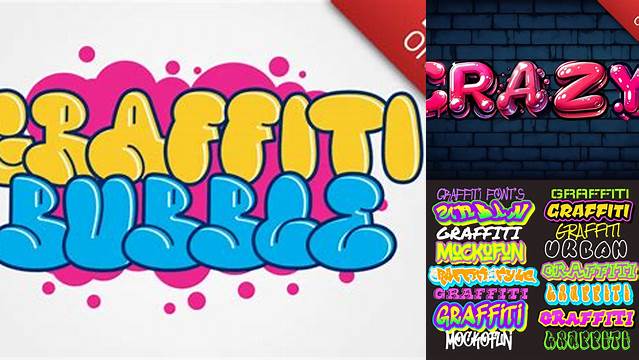
Free Bubble Graffiti Font Generator: Unleash Your Inner Artist
Hey guys, are you ready to dive into the awesome world of bubble graffiti fonts? Let's face it, there's something super cool and eye-catching about those bubbly, rounded letters that just scream street art. And the best part? You can create your own with a bubble graffiti font generator free! No need to be a professional artist or spend a ton of money. This guide will walk you through everything you need to know, from understanding what makes a great bubble font to finding the best free tools and even some tips on how to use them effectively. So, buckle up, grab your virtual spray cans, and get ready to make some digital art!
What Exactly is a Bubble Graffiti Font?
Okay, let's get the basics down. A bubble graffiti font, at its core, is a typeface designed to mimic the look of bubble letters commonly seen in graffiti art. Think of those plump, rounded letters that seem to pop right off the wall. They're fun, playful, and have a distinct street-art vibe. These fonts typically feature thick strokes, rounded edges, and a sense of volume, giving them that signature bubbly appearance. They are perfect for creating bold headlines, eye-catching logos, and even adding a unique touch to your social media posts. The beauty of it all is how versatile they are. You can find bubble fonts that range from simple and clean to complex and stylized, often incorporating elements like outlines, shadows, and even 3D effects. This flexibility makes them a great choice for various design projects, allowing you to express your creativity in so many ways!
So, what are the key characteristics of a bubble graffiti font? First, there's the rounded shape, as we've discussed. The letters are typically wide and circular, with curves that give them that bubbly appearance. Then, there's the thickness of the strokes. They are usually much thicker than standard fonts, contributing to the overall volume and visual impact. You'll also notice the use of outlines and shadows. These elements create depth and dimension, making the letters pop. And finally, many bubble fonts incorporate playful details like exaggerated curves, drips, and even stylized tags, which makes these fonts such an excellent option for a variety of digital projects.
Why Use a Bubble Graffiti Font?
Why opt for a bubble graffiti font in the first place? Well, there are several reasons, guys! They are attention-grabbing. In a world saturated with information, a well-designed bubble font can help your message stand out. They're fun and approachable. The playful nature of these fonts makes them ideal for projects aimed at a younger audience or those that want to convey a sense of fun and creativity. They're versatile. While they're perfect for graffiti-inspired designs, they can also be used in a variety of other contexts, such as posters, invitations, logos, and social media graphics. They are customizable. With a bubble graffiti font generator free, you can experiment with different colors, sizes, and effects to create a unique look that matches your vision.
Choosing the Right Bubble Graffiti Font Generator
Alright, so you're sold on the idea of using a bubble graffiti font. Now it's time to find the right bubble graffiti font generator free for you. With so many options available, it's essential to choose one that meets your needs and preferences. Let's explore some of the key factors to consider. First, ease of use is crucial. You want a generator that's user-friendly, even if you're a beginner. Look for a clean interface, intuitive controls, and clear instructions. Secondly, consider the font options. Does the generator offer a wide variety of bubble fonts, or are you limited to just a few? The more choices, the better. Then, there's the customization options. Can you adjust the font size, color, and style? Does it allow you to add effects like outlines, shadows, and 3D effects? Finally, compatibility is also important. Make sure the generator produces files that are compatible with the software you'll be using, whether it's a graphic design program or a social media platform.
When comparing different generators, read reviews and testimonials. This can give you valuable insights into the user experience and the quality of the fonts. Also, make sure to check the output formats. Can you save your designs in formats like PNG, JPG, or SVG? Consider whether the generator is web-based or requires you to download software. Web-based generators are generally more convenient, as you can access them from any device with an internet connection. Remember that the best bubble graffiti font generator free is the one that fits your specific needs and makes the design process enjoyable. It's all about finding the perfect tools to unleash your creativity without any hassle!
Top Free Bubble Font Generators
Let's dive into some top-rated free bubble graffiti font generator options! There are several fantastic tools out there that can help you create amazing designs without spending a dime. First, you have Canva. It's a popular, user-friendly graphic design platform with a wide range of fonts, including several bubble-style options. Canva also offers tons of customization options and allows you to create designs for various purposes. Secondly, there's FontSpace. This website offers a vast collection of free fonts, including many bubble fonts. You can browse by category, and filter your search to find the perfect font for your project. Thirdly, you have Befonts. It is another excellent resource for free fonts, including bubble fonts. It provides a large selection, often with previews and information on how to use them. Another great alternative is Font Squirrel. It focuses on high-quality, legally free fonts, which is great for commercial projects. Finally, you have TextGiraffe. This online tool allows you to generate text with various effects, including bubble fonts. It's super easy to use and perfect for quick designs. Each of these tools has its own strengths and weaknesses, so try them out to find the one that best fits your workflow and creative vision.
Step-by-Step Guide: Creating Bubble Fonts
Creating your own bubble graffiti font is easier than you might think, especially with a good bubble graffiti font generator free! Here's a step-by-step guide to help you get started. First, choose a generator. Select the tool that you like best from the options we discussed earlier. Then, enter your text. Type the words or phrases you want to create in bubble letters into the text box provided by the generator. After that, select a font. Browse through the available bubble fonts and choose the one that matches your style. Now, customize your design. Adjust the font size, color, and style to create the look you want. Feel free to experiment with outlines, shadows, and 3D effects. Preview your design. See how your text looks with the chosen font and settings. Make any necessary adjustments. Download your design. Once you're happy with the result, download your design in the desired format, such as PNG or JPG. Finally, use your design. Incorporate your bubble letters into your projects, whether they're social media graphics, posters, or anything else. Remember, the key to creating great designs is to experiment, have fun, and don't be afraid to try new things!
Tips for Designing with Bubble Fonts
Alright, you've got your bubble graffiti font generator free, and you're ready to create some awesome designs. But before you dive in, here are some helpful tips to take your creations to the next level. First, consider your audience. Think about who you're trying to reach and what message you want to convey. This will help you choose the right font and style. Secondly, pay attention to contrast. Make sure your bubble letters stand out against the background. Use contrasting colors or add an outline to improve readability. Then, experiment with different effects. Don't be afraid to try shadows, gradients, and 3D effects to add depth and visual interest. Consider the composition. How you arrange your bubble letters is just as important as the letters themselves. Make sure your design is balanced and visually appealing. Another excellent tip is to combine fonts. Mix and match bubble fonts with other fonts to create unique and dynamic designs. Don't forget about readability. Although bubble fonts are fun, they can sometimes be difficult to read. Make sure your text is legible, especially if it's long or complex. Finally, practice makes perfect. The more you experiment, the better you'll get at designing with bubble fonts. So have fun, get creative, and enjoy the process!
Where to Use Your Bubble Graffiti Fonts
So, you've generated some awesome bubble graffiti fonts with your favorite bubble graffiti font generator free. Now the question is, where can you use them? The possibilities are endless! First and foremost, use them on social media. Create eye-catching graphics for your posts, stories, and profile pictures. Use them for posters and flyers. Design striking posters and flyers to promote events, products, or services. Use them for logos and branding. Develop unique logos and branding materials that reflect your brand's personality. Use them on websites and blogs. Add a playful and engaging touch to your website or blog design. Another good place to use them is in invitations and greetings. Create fun and personalized invitations and greeting cards for special occasions. Don't be afraid to experiment with different applications, and let your creativity guide you. Whether you're a business owner, a social media enthusiast, or just someone who loves to create, bubble fonts can add a touch of fun and personality to any project.
Final Thoughts on Bubble Fonts
Before you start, here are some final thoughts to keep in mind as you begin working with bubble graffiti fonts! First, prioritize creativity. Don't be afraid to push boundaries and experiment with new ideas. You should consider your audience. Make sure your designs resonate with your intended audience. Then, stay inspired. Look to other artists and designers for inspiration. Don't be afraid to create a lot. Practice makes perfect. The more you create, the better you'll get at designing bubble fonts. Consider the purpose. Think about the goal of your design. Always strive to create engaging content. Make your designs visually appealing. These elements will help you create awesome designs, so keep these thoughts in mind and get creating!